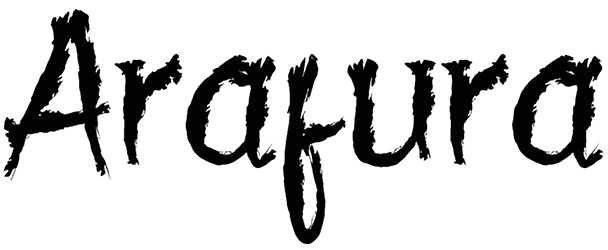
Arafura Font
For those of you who love chill designs, this item will be exciting. Arafura is a horror font with hand-drawn letters and a dark, eerie vibe. Give it a try in your upcoming projects, for example, festival posters, Halloween designs, and many other creepy contexts to make them level up.